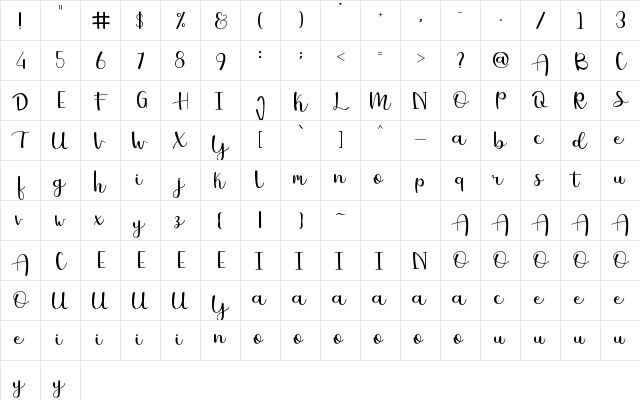
Antique Regular
Design Context for Antique Typeface
Antique has the warm character of retro typography — evoking diners, record sleeves, and the golden age of print advertising.
Font Pairing: Combine Antique with a simple slab or neutral sans — period-accurate companions reinforce the vintage feel without competing for attention.
Pro Tip: Use Antique for headlines and pull quotes rather than body copy — its personality is best appreciated in short, focused bursts.